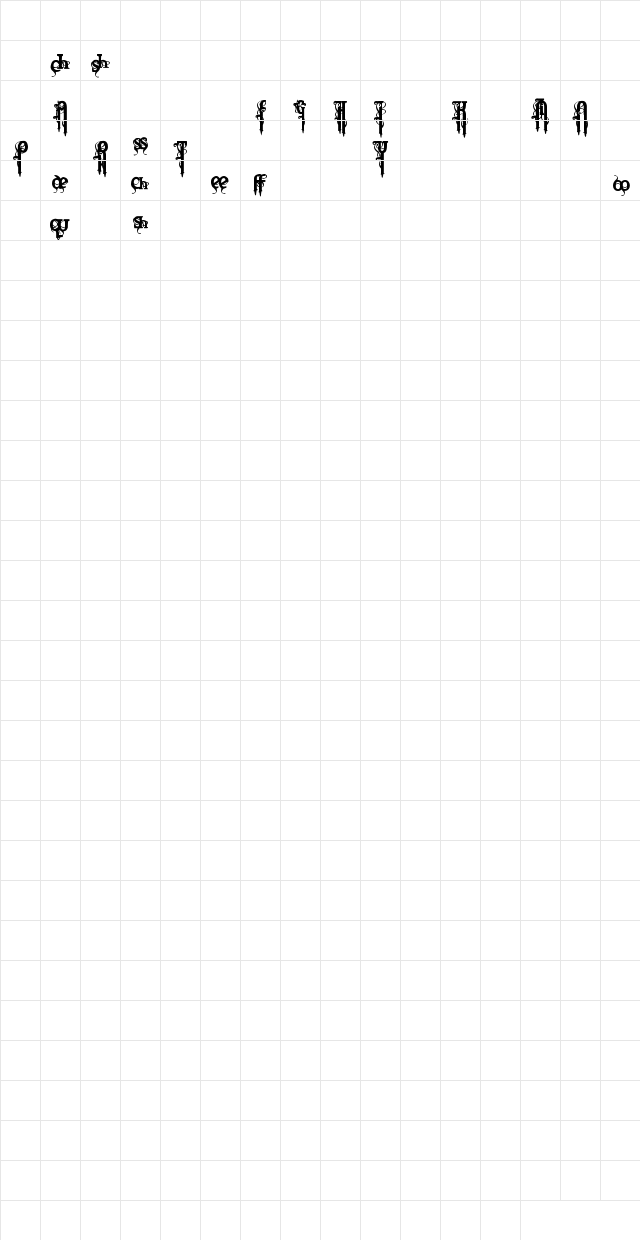
Complete Marquis De Sade Alternates Regular glyph index. Displaying only characters natively supported by Marquis De Sade Alternates Regular font.
Marquis De Sade Alternates is a composed and adaptable typeface that performs quietly and consistently across a wide range of design contexts.